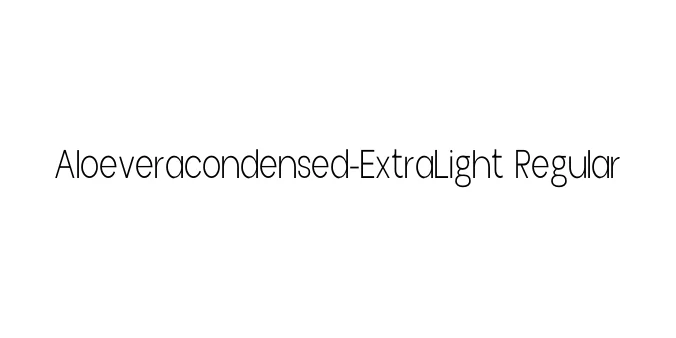
Aloeveracondensed-ExtraLight Regular
Designed by Sealider
Aloeveracondensed-ExtraLight Regular is a sleek and modern sans-serif typeface that emphasizes verticality and minimalist aesthetics. Designed to maximize readability within narrow horizontal constraints, this font is part of a larger family that focuses on clean lines and a contemporary feel. It was developed to cater to the needs of modern graphic designers who require high-impact typography that doesn't overwhelm the visual space, making it a staple for clean, architectural layouts.
The ExtraLight weight provides a delicate, sophisticated touch, characterized by its fine stroke widths and open counters. This specific variation is highly effective in editorial design and luxury branding, where an understated yet premium look is desired. Its geometry is balanced to ensure that even at thin weights, the font maintains its structural integrity across various digital and print platforms, offering a refined tool for creative expression.
Aloeveracondensed-ExtraLight Regular Best Uses
Excellent for high-fashion magazine headlines and sophisticated body text layouts.
Perfect for creating minimalist logos and premium brand identities for luxury goods.
Ideal for sleek, modern website hero sections and navigation menus.
Great for stylish Instagram story overlays and minimalist quote graphics.